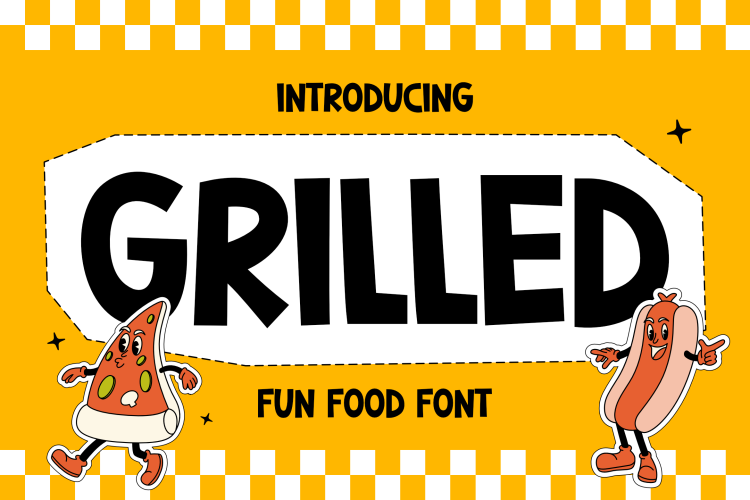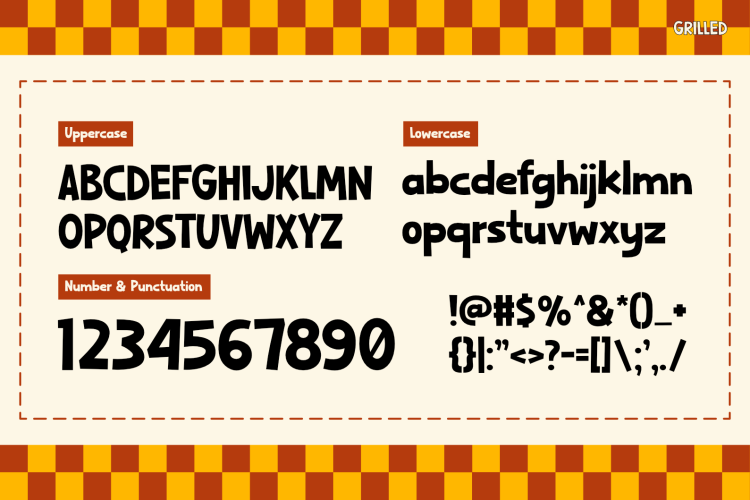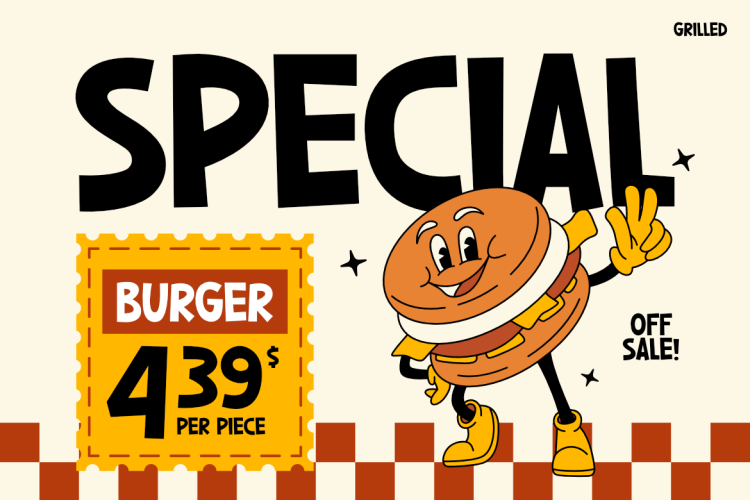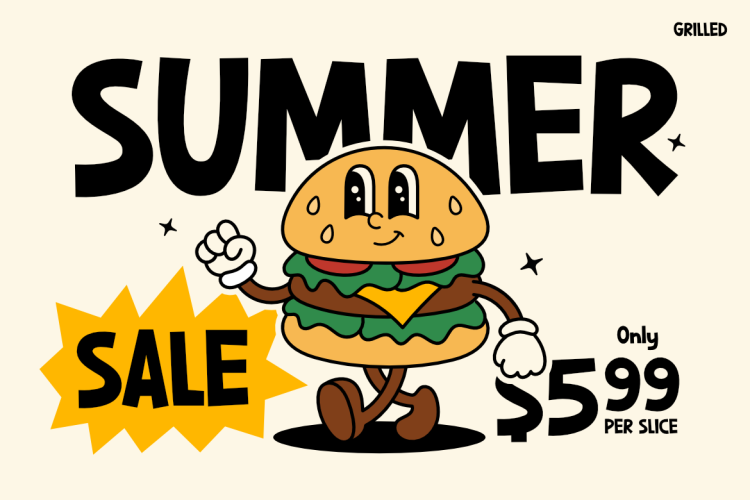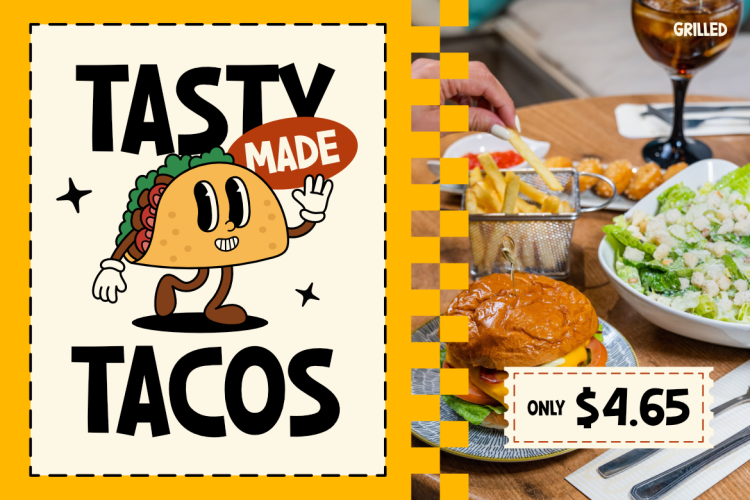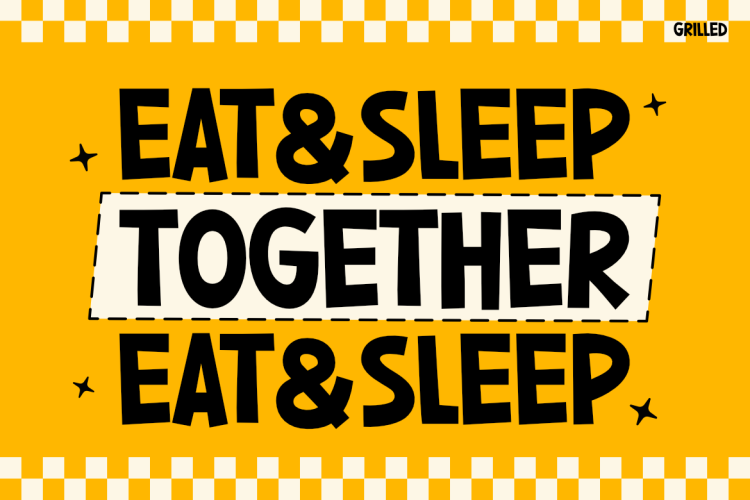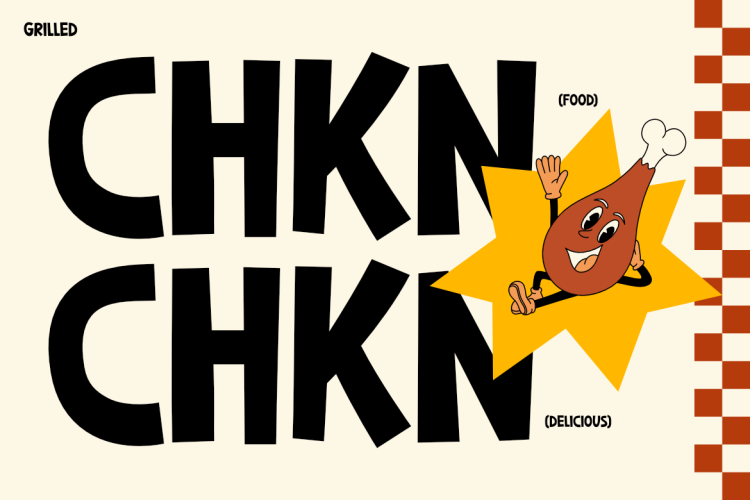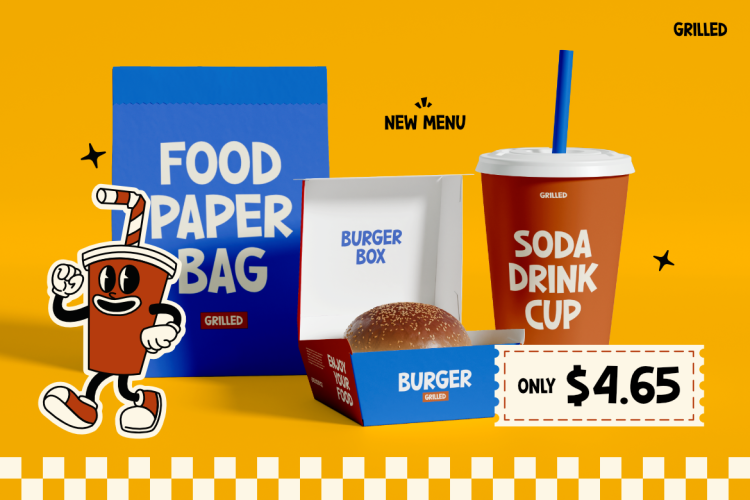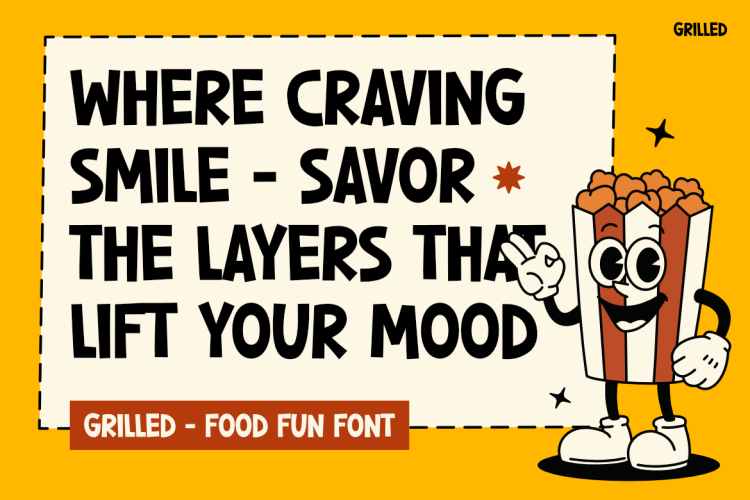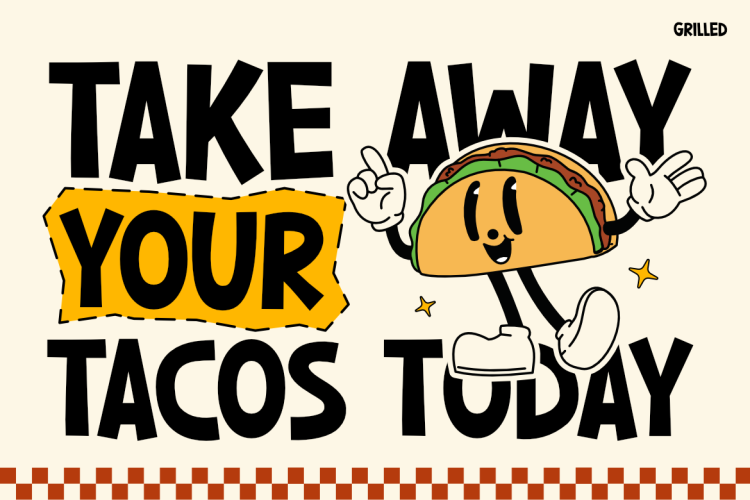
Instagram Font GRILLED โ Tasty Bold Font for Eye-Catching Designs
Instagram Font GRILLED is a bold, cheerful, and expressive typeface that instantly brings warmth and visual energy into your designs. Moreover, its chunky shapes, rounded edges, and lively proportions give it a unique personality that stands out beautifully on social media feeds. Additionally, the font embraces a fun retro-diner aesthetic, making every letter feel deliciously vibrant and full of character. Because of this friendly visual style, the font becomes an ideal choice for projects that need to feel inviting, playful, and eye-catching. Furthermore, its strong readability ensures that your message stays clear even when paired with bright illustrations or heavy graphic elements.
Consequently, Instagram Font GRILLED becomes a powerful tool for brands and creators who want a typeface that balances fun and professional appeal. Even so, the font remains versatile enough to support various themes, including food promotions, summer sales, restaurant menus, and cheerful marketing materials. In addition, the preview imagesโfeaturing adorable burger mascots, dancing tacos, and smiling friesโdemonstrate how effortlessly the font blends with cartoon-style artwork and bold color palettes. Therefore, it supports creative storytelling while keeping every design fresh, engaging, and easy to enjoy.
Additionally, the typeface pairs beautifully with checkered patterns, dynamic icons, playful illustrations, and bright contrasting backgrounds. Besides that, its clean spacing makes it suitable for both digital and print use, including posters, packaging, branding kits, social media templates, and menu boards. As a result, your visuals become more memorable, expressive, and consistent across platforms.
Who Is It Perfect For?
Food and beverage brands
Burger shops, cafรฉs, taco stands, and fast-food restaurants
Instagram creators and content designers
Menu and poster designers
Kids-themed product creators
Influencers and digital sellers
Merch, sticker, and printable designers